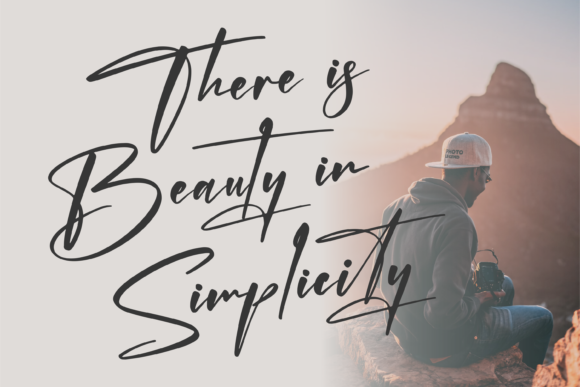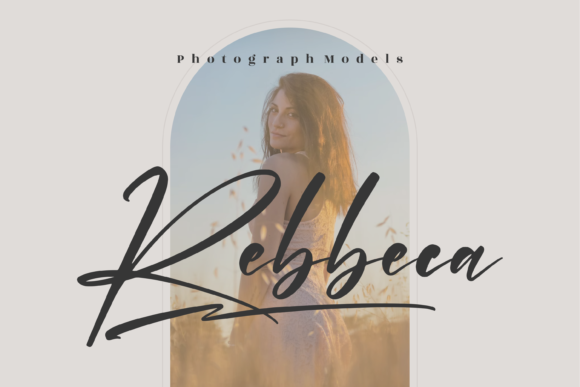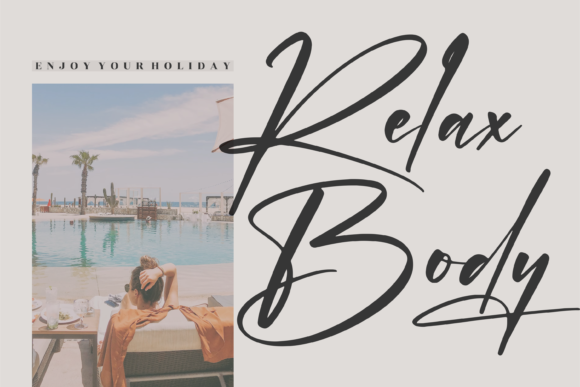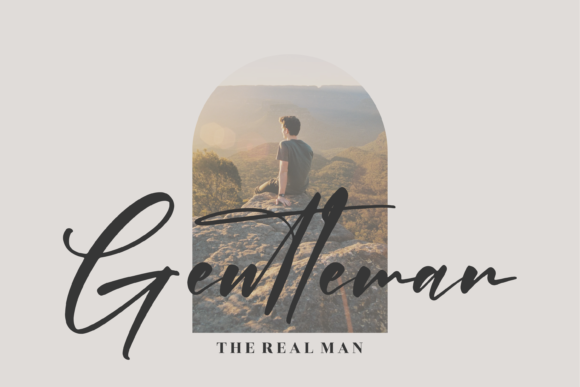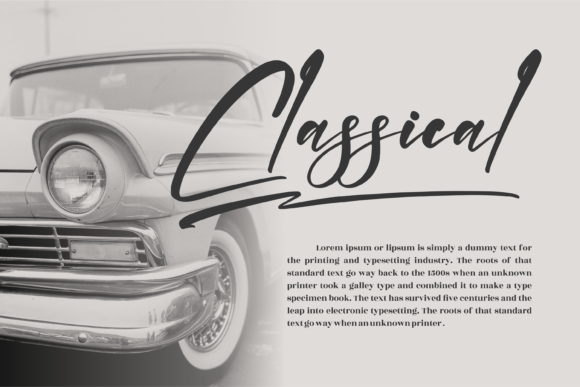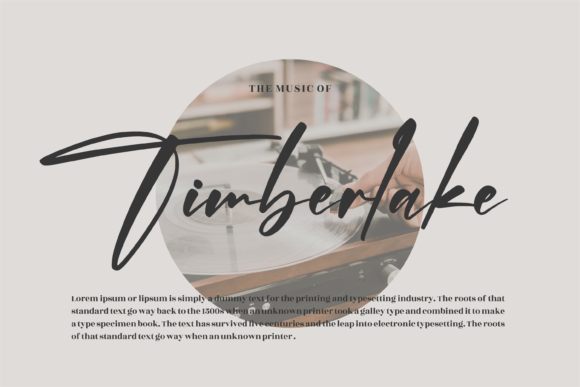
Introduction to Jonathan Hetegral Font Font
Fonts play a crucial role in design, and the Jonathan Hetegral Font font is a typeface that brings both character and versatility to any project. Whether you’re working on a branding project, a website, or a print design, the Jonathan Hetegral Font font offers a unique style that can elevate your work.
Jonathan Hetegral is a beautiful and refined script font.
It has a classy, elegant and modern look that can be used for logos, branding, invitations, stationery, wedding designs, social media posts, and much more Jonathan Hetegral is PUA encoded which means you can access all glyphs and swashes with ease.
Key Features of Jonathan Hetegral Font Font
Why Choose Jonathan Hetegral Font Font?
The Jonathan Hetegral Font font is more than just a typeface – it’s a design tool that helps you communicate your message with style and clarity. Its unique character set and versatile design make it suitable for a wide range of applications, from elegant invitations to bold headlines.
With its carefully crafted letterforms and balanced proportions, the Jonathan Hetegral Font font ensures readability and visual appeal across all mediums.
What makes Jonathan Hetegral Font font special?
The Jonathan Hetegral Font font stands out with its unique design, exceptional readability, and versatility across various design applications.